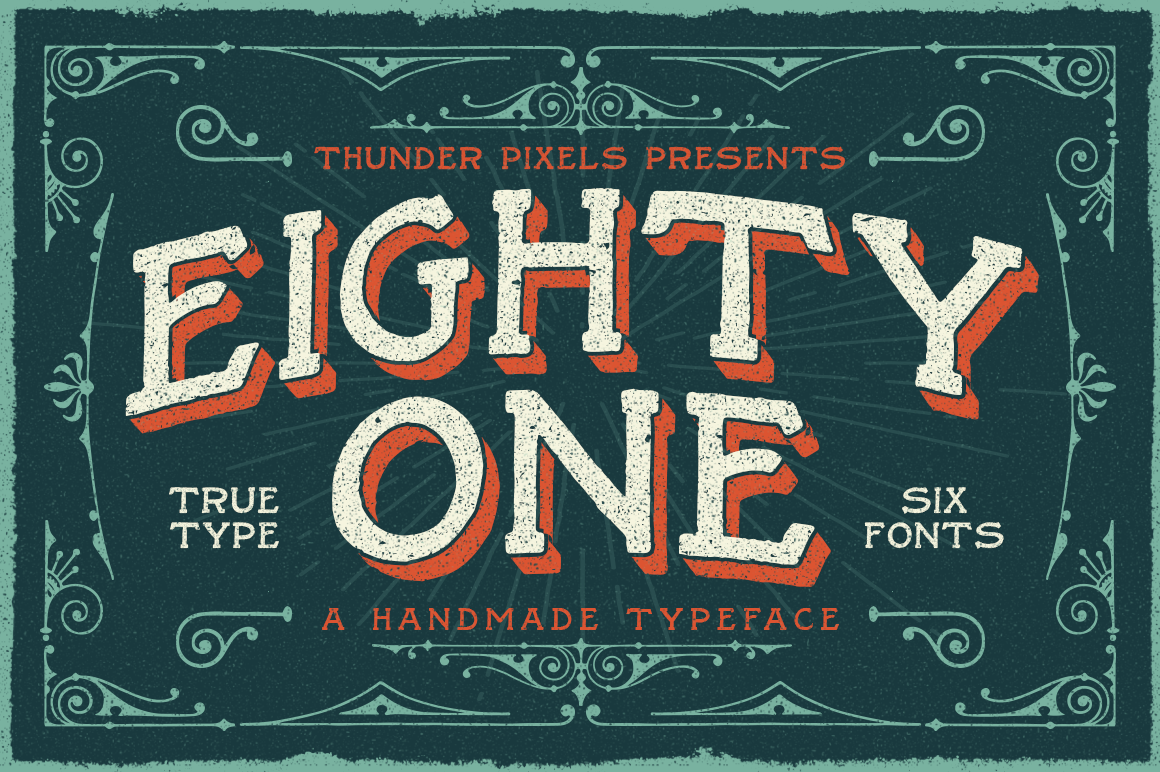
Eighty One Typeface
Inspired in the Hand-Lettering. Eighty One is a ideal display font for creating a "Hand-drawn Atmosphere" to your texts and designs. Buy the Grainy & Gritty Textures used in the screenshots here http://crtv.mk/dVwg
- Six fonts in .TTF (Clean - Clean 3D - Clean 3D Outline - Dust - Dust 3D - Dust 3D Outline)
- 28 Hand-drawn glyhps
- 72 Typographic Charms in EPS format